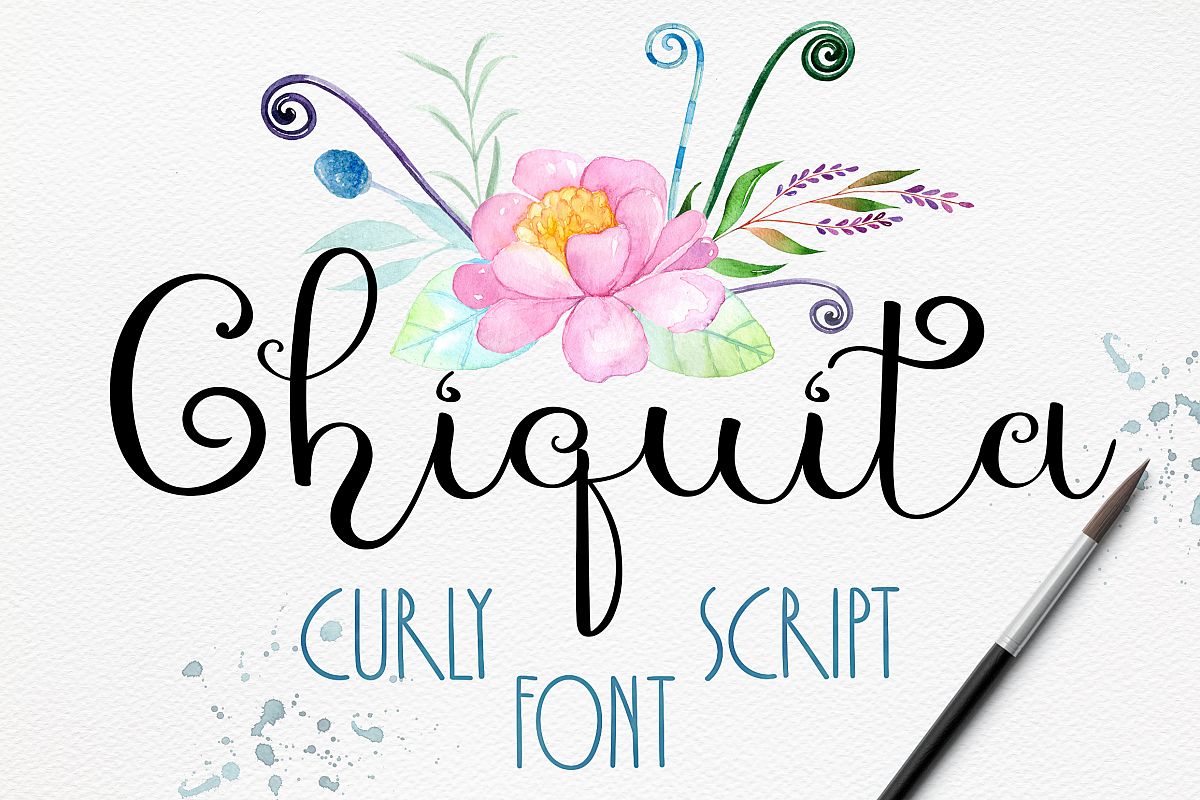
Chiquita - curly script font
Chiquita-Regular
Chiquita is a decorative curly handwritten font. It is fun and contrast, made in brush calligraphy style. Perfect for greeting cards, home decor, quotes, posters, laser cutting, kids accessories, DIY projects and much more!